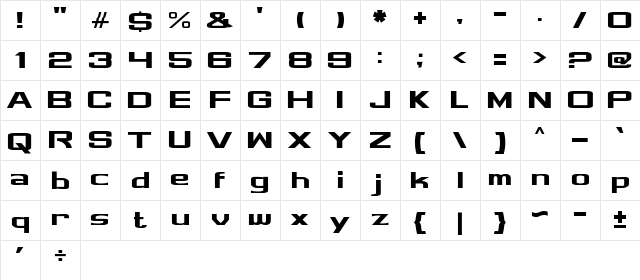
Tajam Regular Font Preview
Tajam Regular
Tajam Regular Font Details
| Designer | herulogo 2019 |
Design Context for Tajam Typeface
Tajam is a composed and adaptable typeface that performs quietly and consistently across a wide range of design contexts.